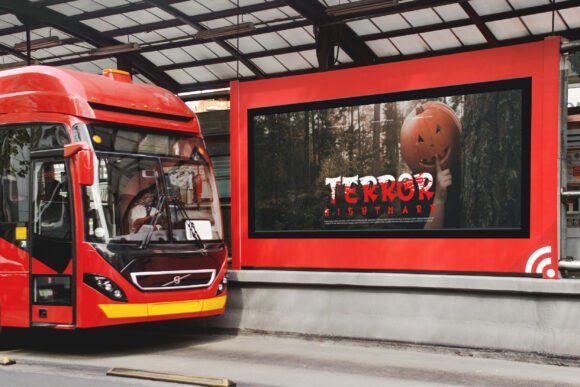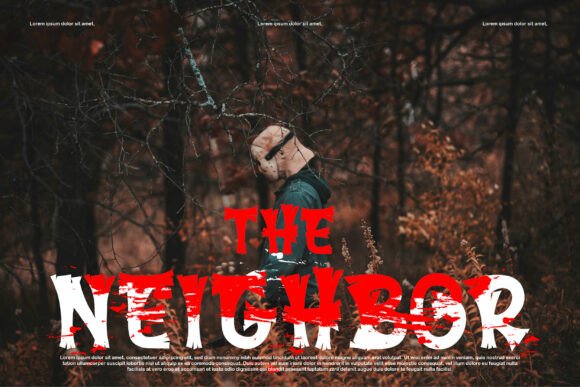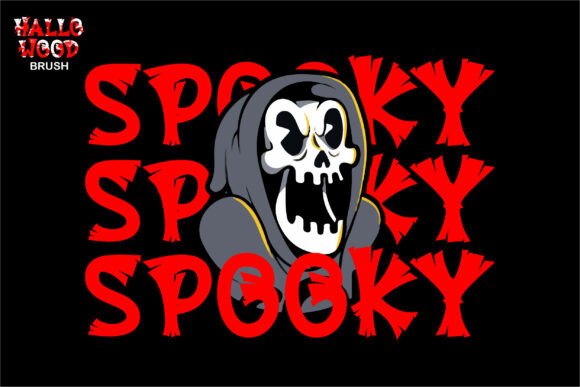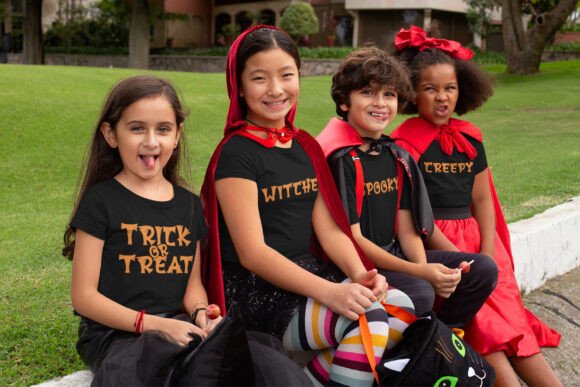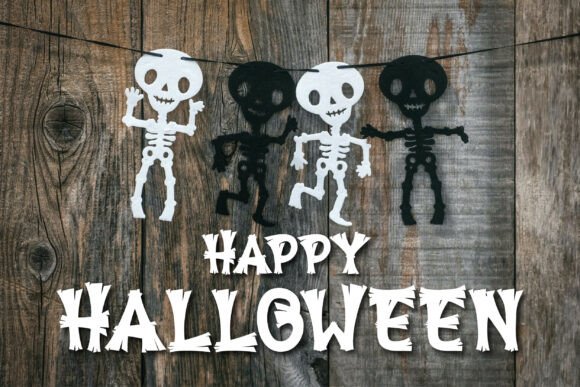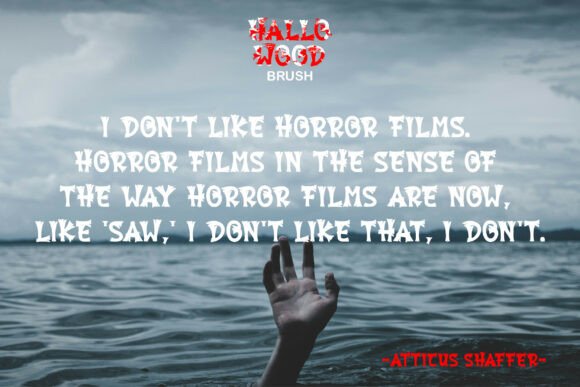
Introduction to Hallowood Brush Font
As a designer, have you ever found yourself staring at a blank canvas, struggling to bring a creative project to life? Perhaps you’re working on a Halloween-themed campaign and need the perfect font to capture the eerie essence of the season. That’s where the Hallowood Brush Font comes in – a wood-inspired display font that’s sure to transport your designs to a world of spine-tingling horror.
With its distinctive finish and high-quality design, this font is a valuable resource for any designer looking to create hauntingly beautiful graphics. Whether you’re working on a movie poster, apparel design, or craft project, the Hallowood Brush Font is the perfect choice for adding an element of eeriness to your work. And the best part? It’s available for a free download, complete with a transparent background, making it easy to integrate into your design.
- High-quality design resource suitable for various creative projects, including illustrations and graphics.
- Features a unique, hand-drawn style with subtle imperfections, adding a touch of personality to any design.
- Designed to be versatile, making it suitable for a wide range of design applications, from digital to print.
Honest Review: Hallowood Brush Font
As a designer, I’m always on the lookout for high-quality design resources to elevate my creative projects. Recently, I stumbled upon the Hallowood Brush Font, and I’m excited to share my thoughts on this font.
- ✨ Unique and creative brush strokes that add a personal touch to designs.
- ⚠️ Limited font sizes and styles, which may not be ideal for large-scale designs.
- ⚠️ Some users may find the brush strokes too inconsistent, which can affect overall design cohesion.
Overall, I think the Hallowood Brush Font is a great addition to any designer’s toolkit. While it has its limitations, its unique brush strokes and transparent background make it an excellent choice for creative projects. If you’re looking for a free design resource to add some personality to your work, I’d definitely recommend giving the Hallowood Brush Font a try.
The Hallowood Brush Font is a high-quality design resource ideal for creative projects. It features a unique, hand-drawn style and can be easily customized to fit your project’s needs.
To get the most out of the Hallowood Brush Font, experiment with different font sizes, colors, and combinations. You can also use it in conjunction with other design elements to create a unique look.
The Hallowood Brush Font is perfect for a variety of creative projects, including:
Invitations, greeting cards, and party decorations
Branding materials, such as logos and business cards
Print and digital advertising
Web design and development